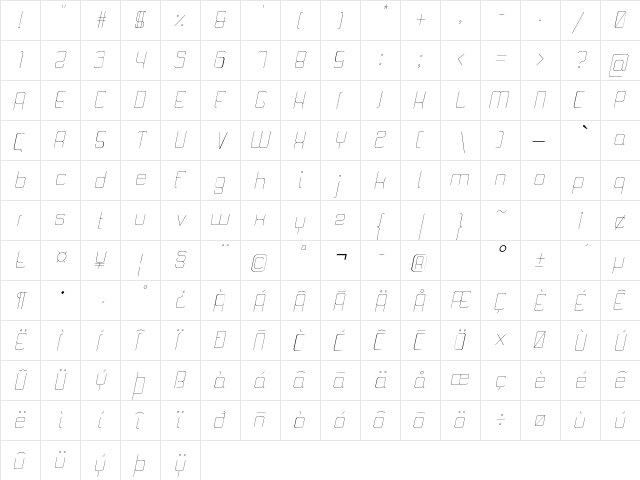
Quattro Thin Italic
Design Context for Quattro Typeface
Quattro is a composed and adaptable typeface that performs quietly and consistently across a wide range of design contexts. The dynamic lean of this cut emphasises speed and emphasis in any layout. Its slender proportions lend an understated elegance to any composition.
Pro Tip: Use Quattro for emphasis, pull quotes, and subheadings where its slanted energy can add rhythm to the layout.